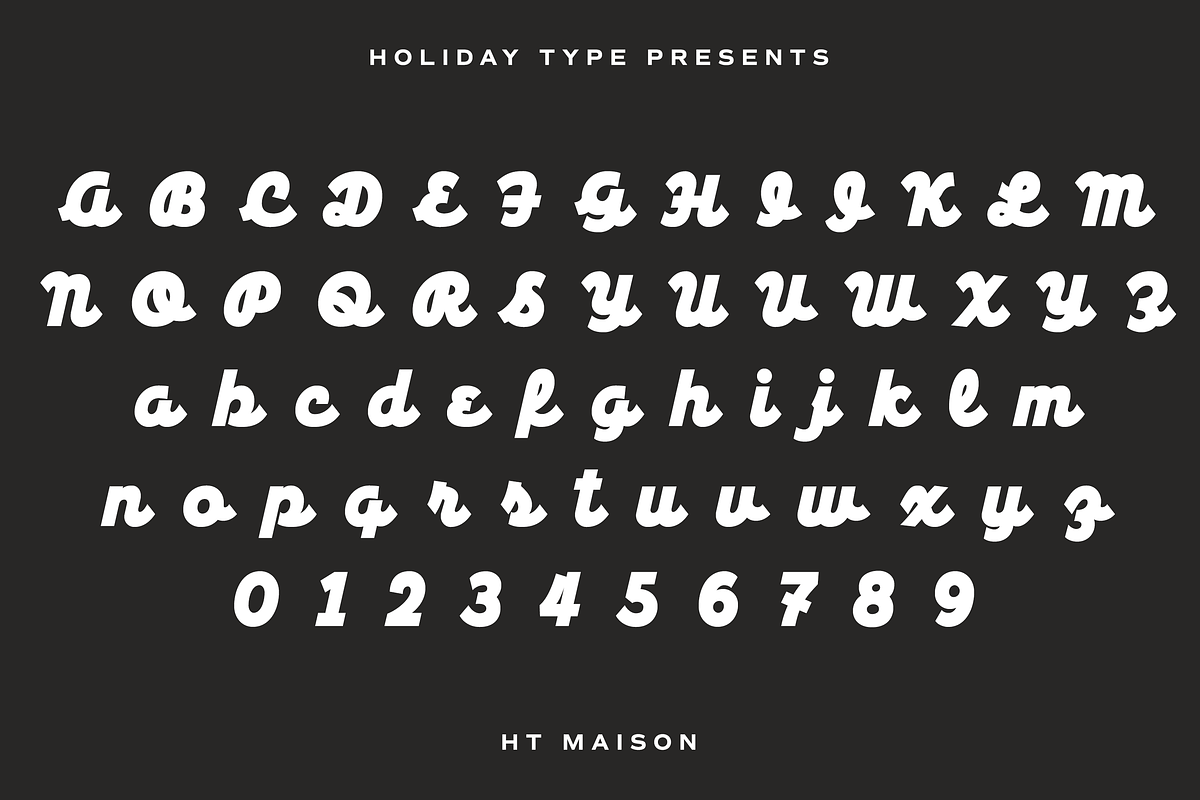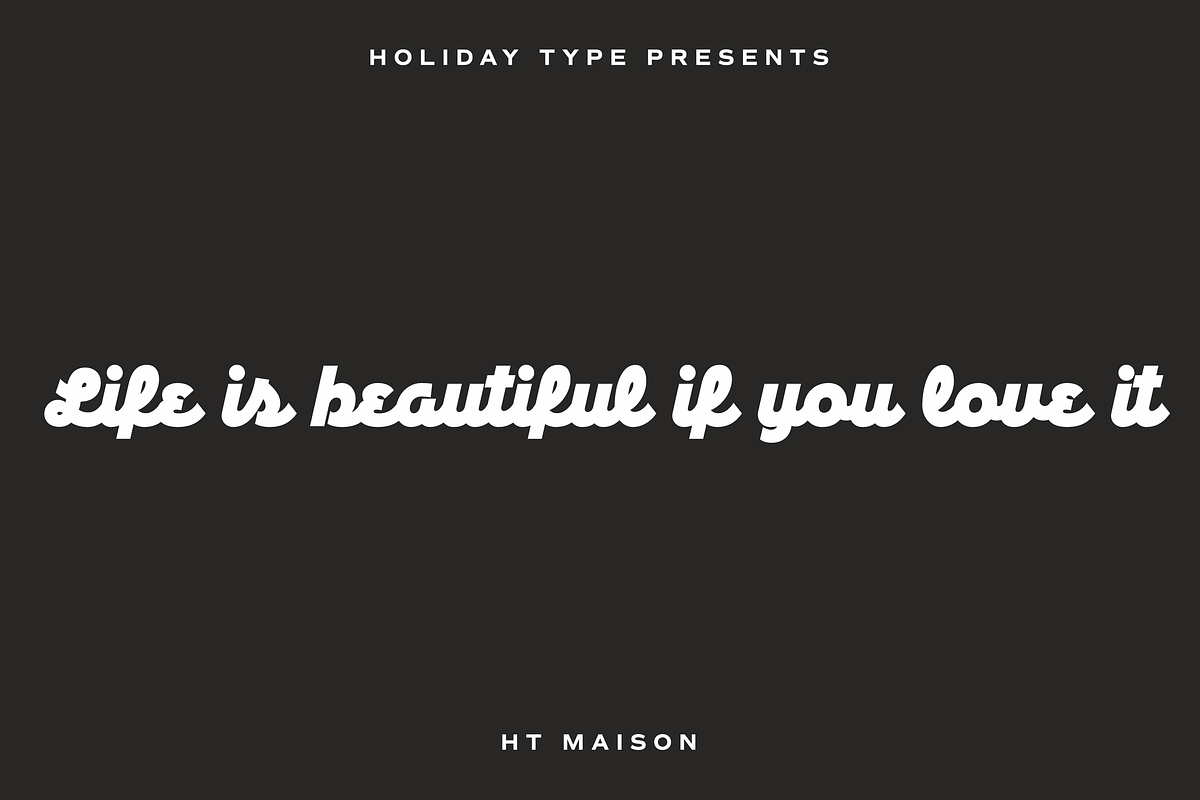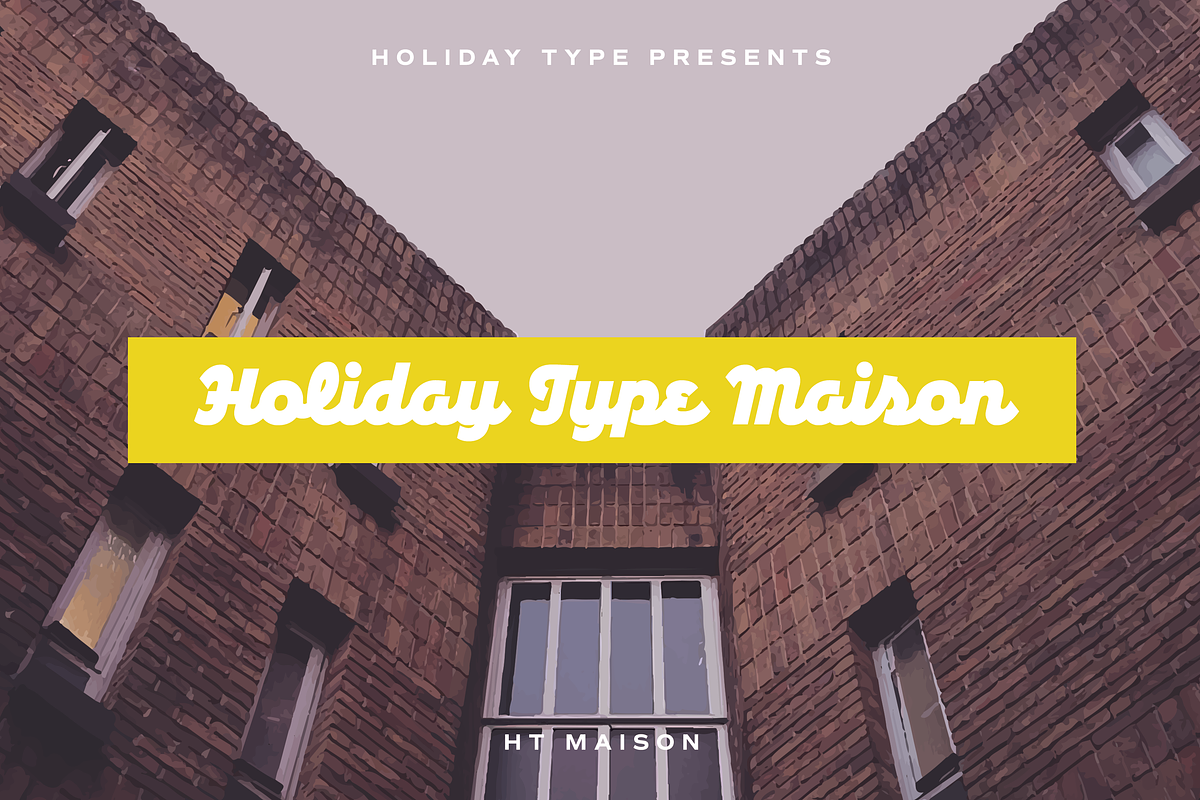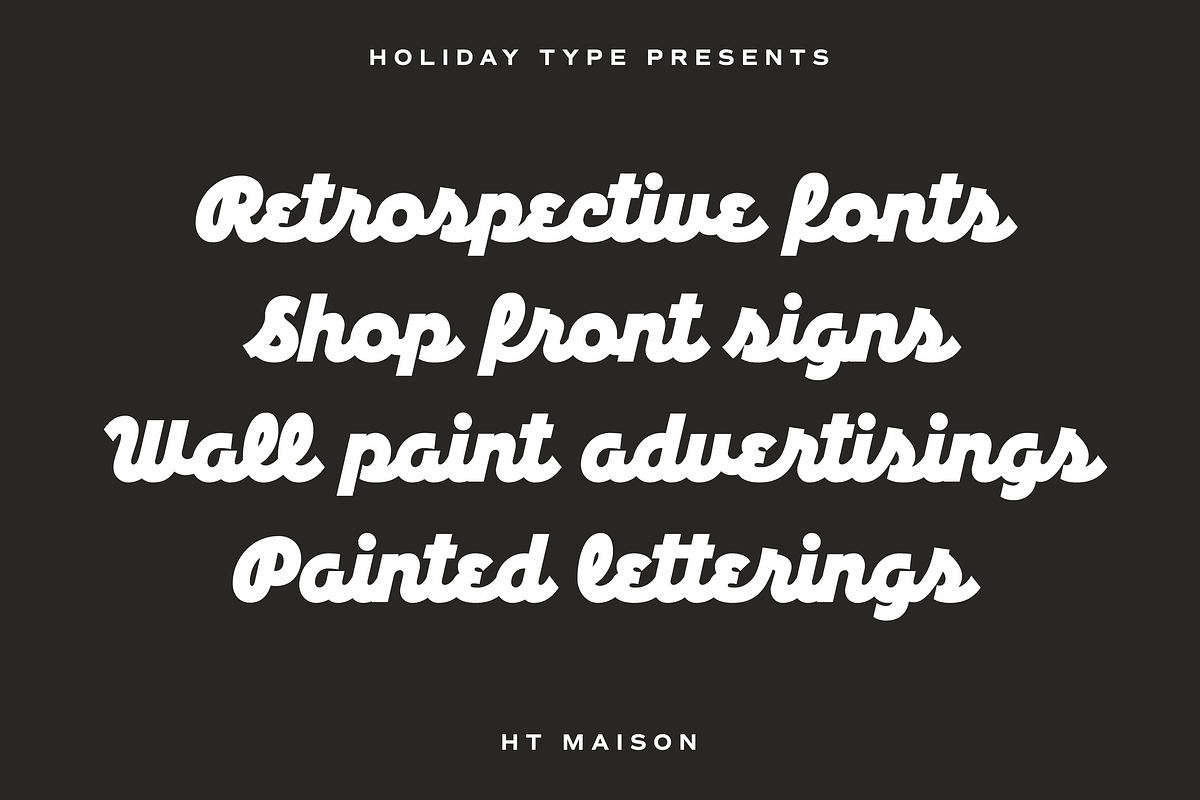
HT Maison
Holiday Type fonts are retro script fonts inspired by shopfront lettering and hand-painted wall advertisements from 1950s Italy. They capture the nostalgic charm of mid-century Italian streets, blending elegance with a handcrafted feel.